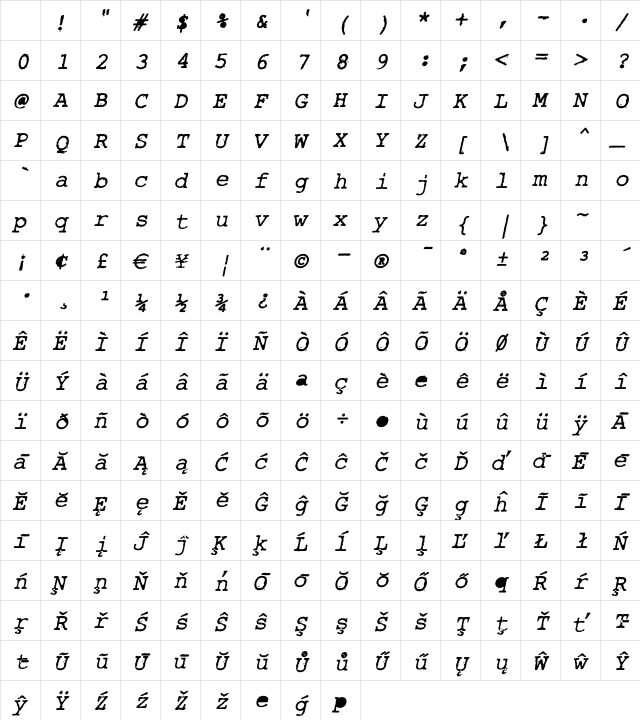
Complete Rough_Typewriter Bold Italic glyph index. Displaying only characters natively supported by Rough_Typewriter Bold Italic font.
Rough_Typewriter embraces imperfection - its rough, textured character adds raw authenticity to designs that want to feel lived-in and unconventional. The slanted form adds forward momentum and visual energy.
Pro Tip: Use Rough_Typewriter at larger sizes where the texture and irregularity of each letterform can be clearly seen - it loses its character at small sizes.